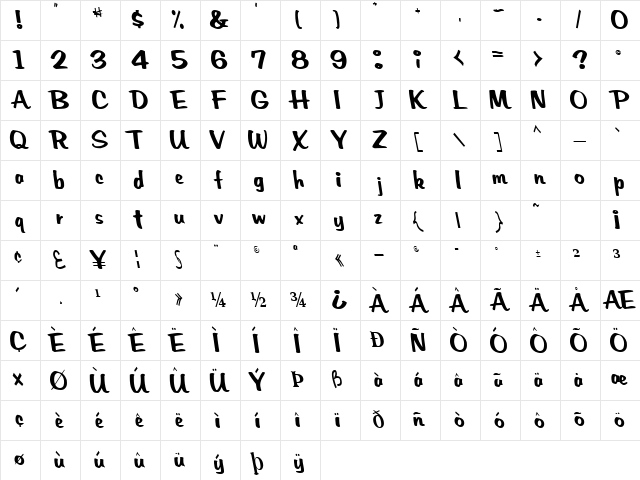
Reader Regular
Reader Family
Complete Reader Regular glyph index. Displaying only characters natively supported by Reader Regular font.
Design Context for Reader
Reader is a composed and adaptable typeface that performs quietly and consistently across a wide range of design contexts.